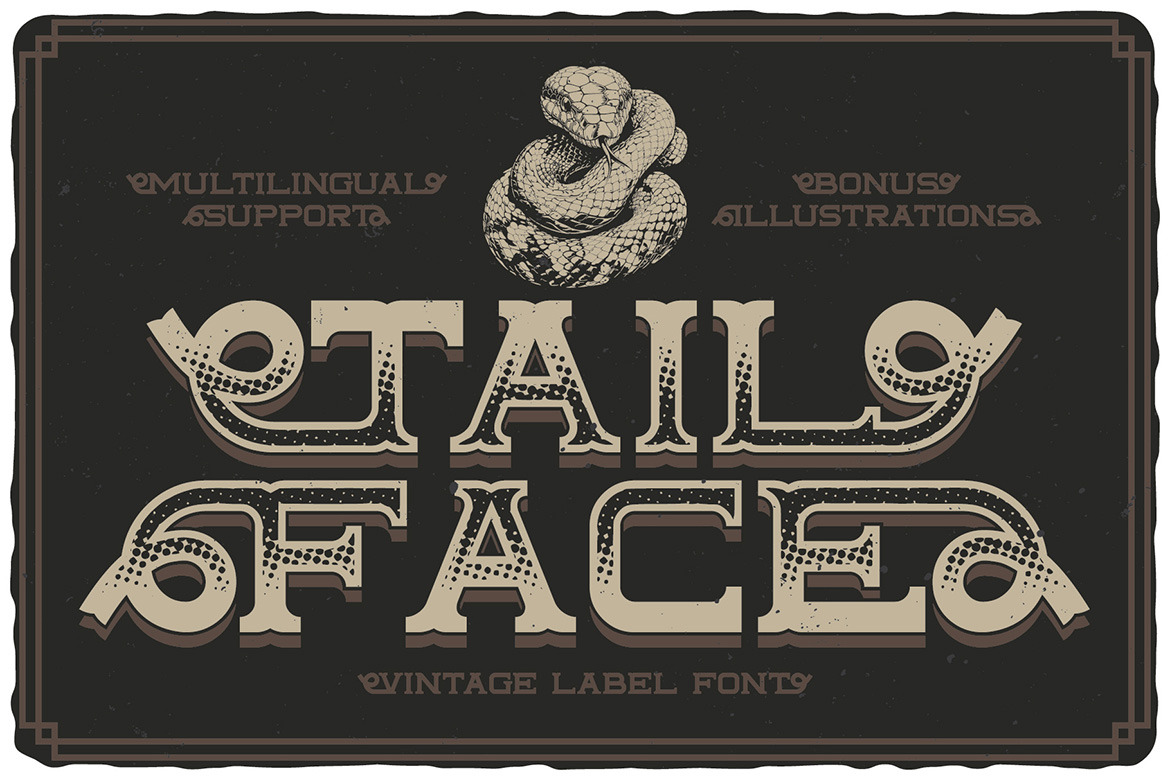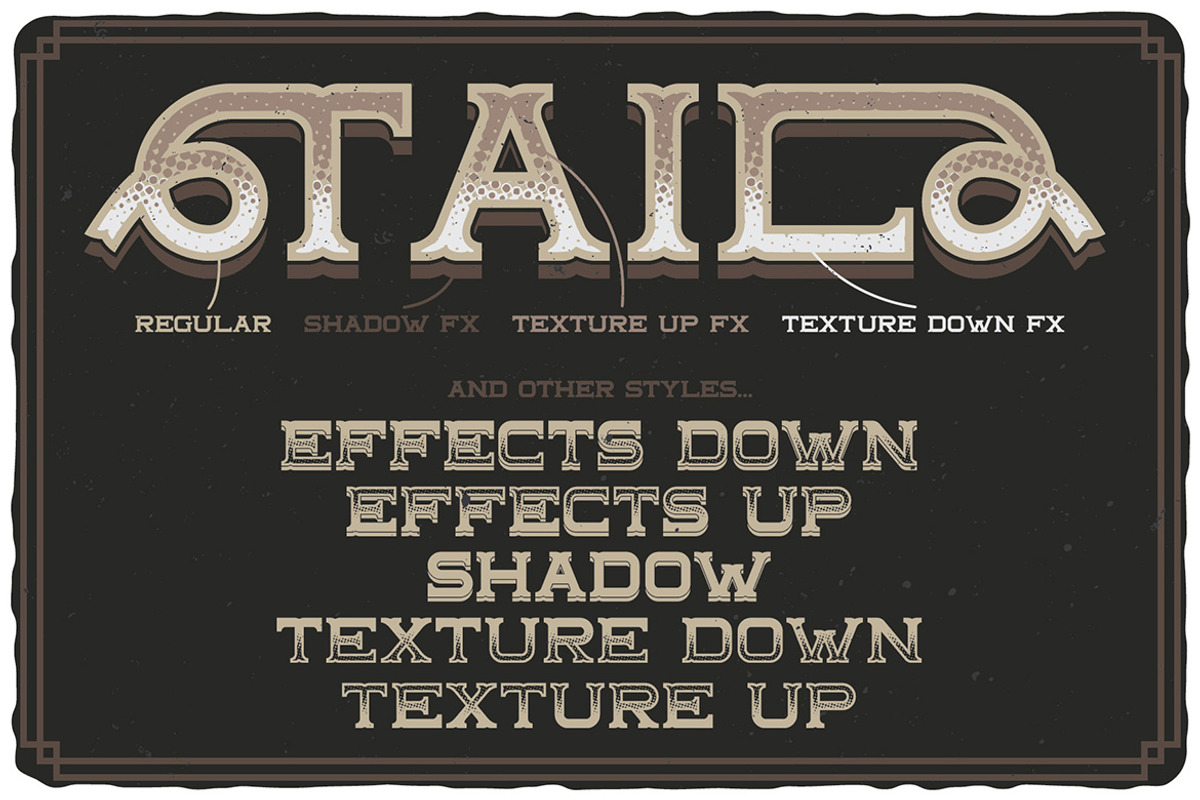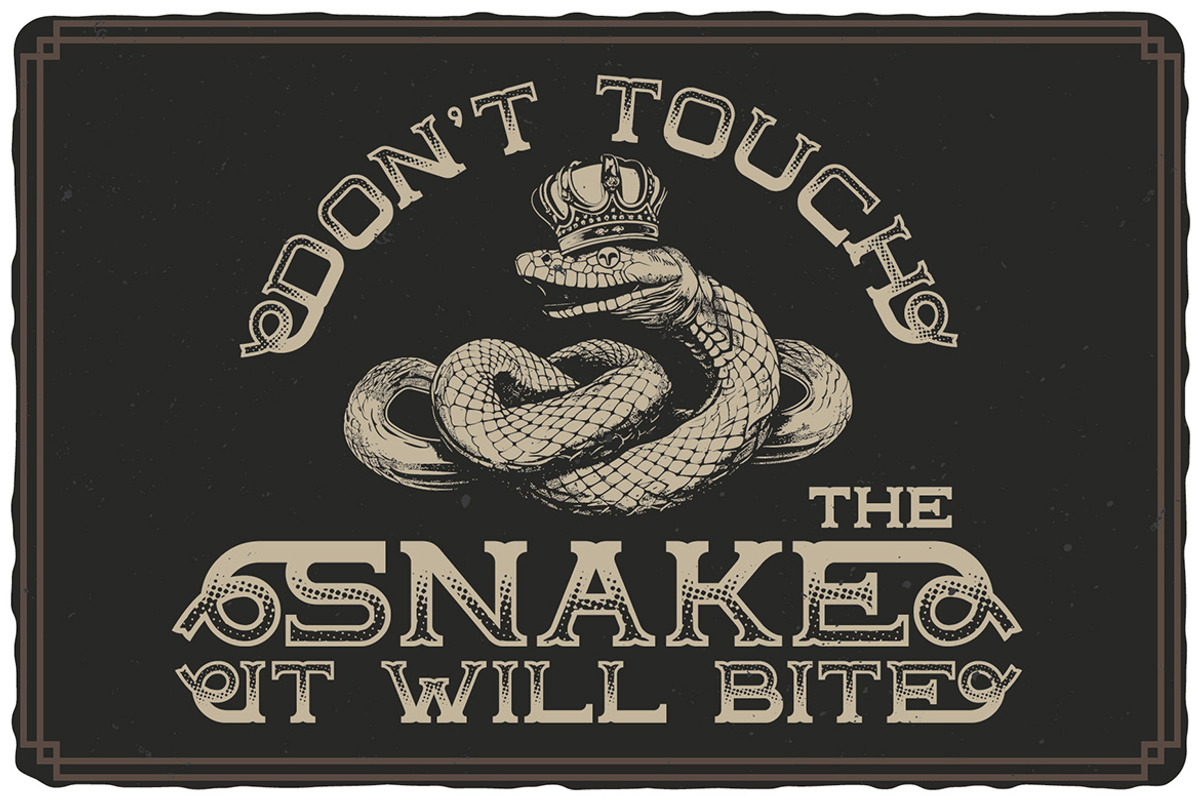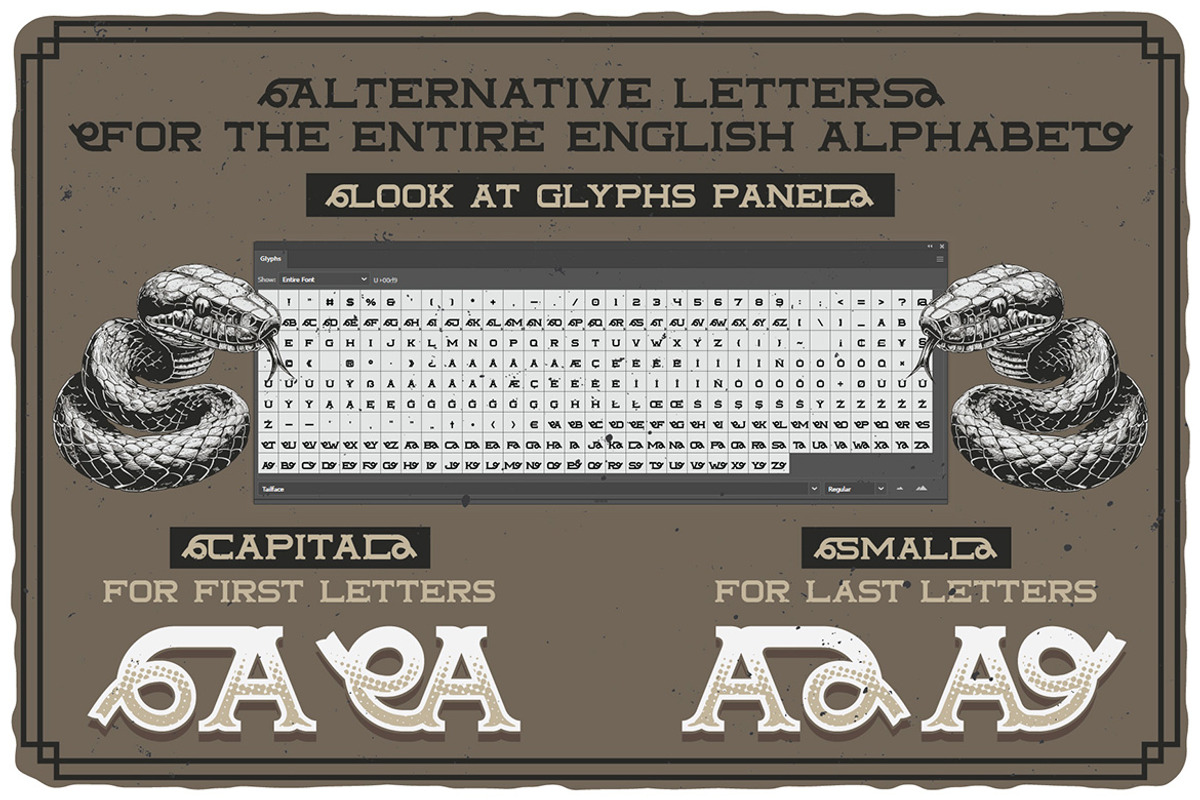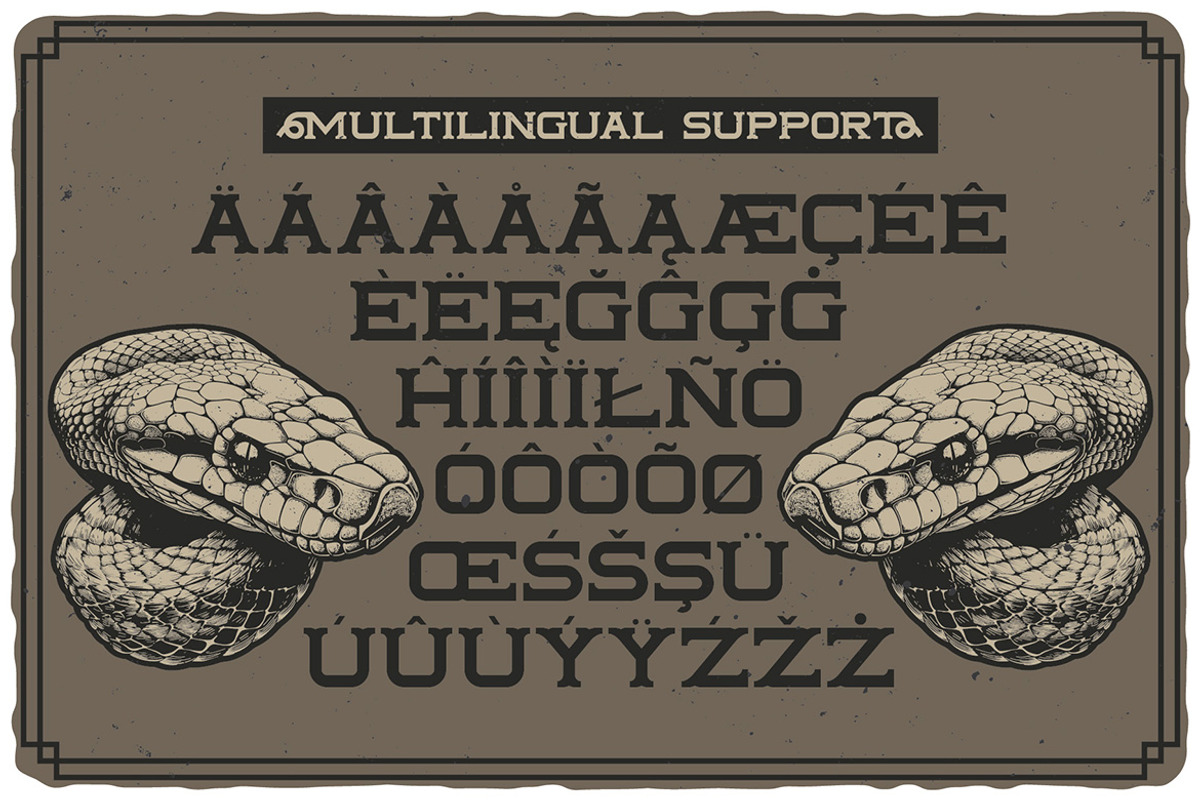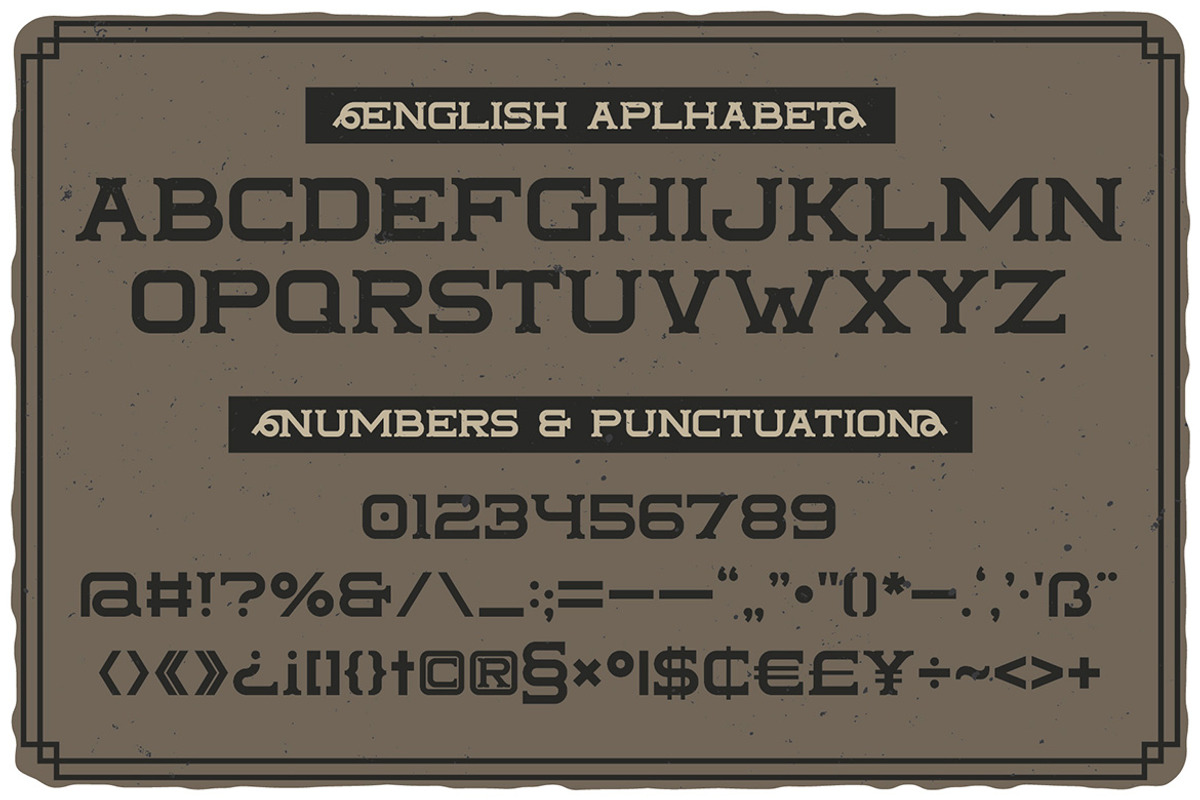
Tailface Vintage Layered Font
Unique, wide, vintage, retro, textured & layered serif font. Comes with multilingual support & alternate characters - great for your new logo or branding project.
- 9 font styles
- Multilingual support & alternate characters
- Great for retro or vintage style branding projects